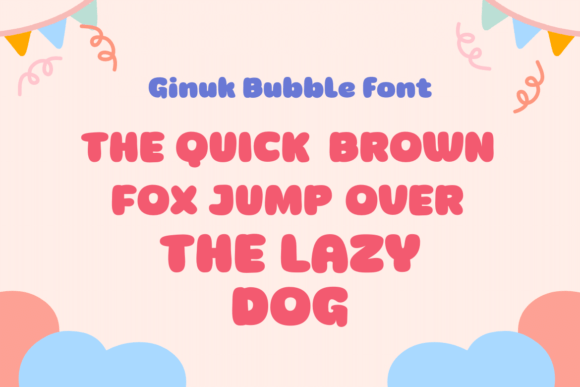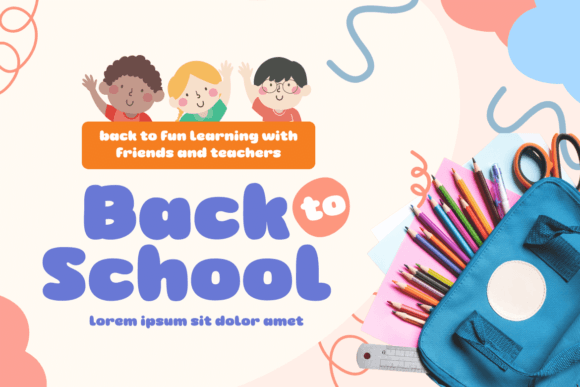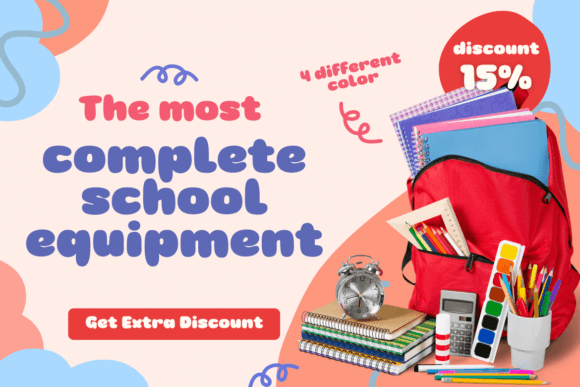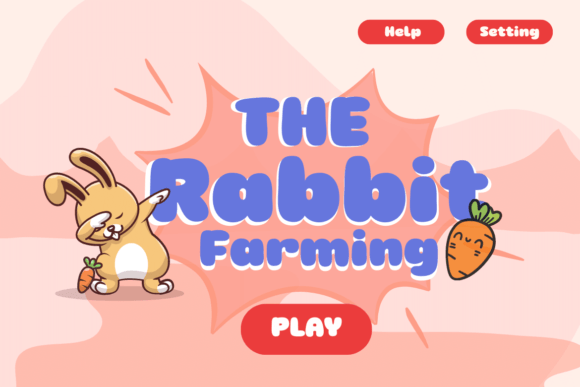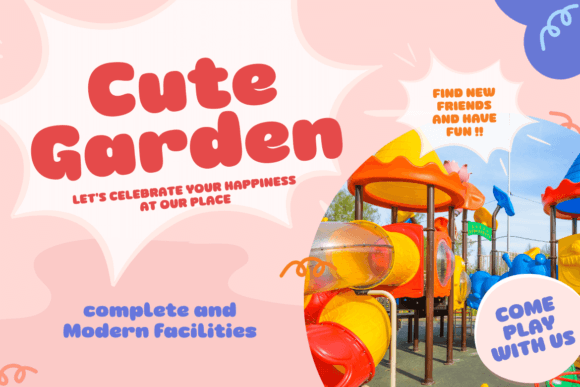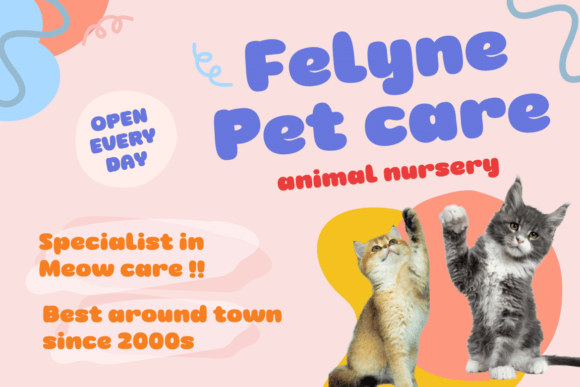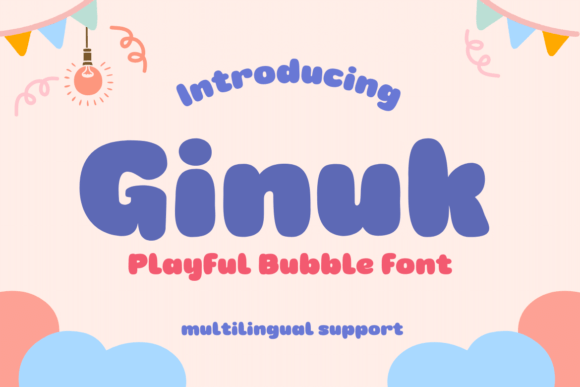
Introducing Ginuk Font: Elevate Your Message with Versatility and Style
Are you looking for a font that can take your message to the next level? Look no further than the Ginuk font. This versatile and stylish font is perfect for designers and crafters who want to make their projects stand out. With its unique style and extensive character set, the Ginuk font is an excellent choice for a wide range of design projects.
Unleash Your Creativity with Ginuk Font’s Versatility
The Ginuk font is designed to be versatile, making it suitable for various design projects. Whether you’re working on a logo, brochure, website, or social media graphics, this font can help you demonstrate your ideas in a captivating way. Its clean and modern design ensures that your message is conveyed clearly and effectively, making it perfect for titles, subtitles, and sentence text.
Complete Character Set for Seamless Typography
One of the standout features of the Ginuk font is its extensive character set, which meets the Latin ISO standard. This means that you don’t have to worry about the completeness of the character set, ensuring that your text is displayed perfectly and consistently. The font family includes a wide range of characters, making it ideal for projects that require a high level of typographic accuracy.
The Ginuk font is an excellent choice for designers and crafters who want to add a touch of elegance and sophistication to their projects. Its unique style and versatility make it perfect for a wide range of applications, from branding and advertising to packaging and digital media. Whether you’re working on a personal project or a client’s brief, the Ginuk font is sure to impress.
Key Features of Ginuk Font
- Versatile style suitable for various design projects
- Extensive character set meeting the Latin ISO standard
- Font family includes titles, subtitles, and sentence text
- Clean and modern design for clear and effective communication
- Perfect for designers and crafters who want to add elegance and sophistication to their projects
Tips for Using Ginuk Font in Your Design Projects
Here are some tips for using the Ginuk font in your design projects:
- Use the font for titles and headings to add a touch of elegance and sophistication
- Experiment with different font sizes and colors to create visual interest
- Pair the Ginuk font with other fonts to create a unique and stylish typography
- Use the font for body text to create a clean and modern look